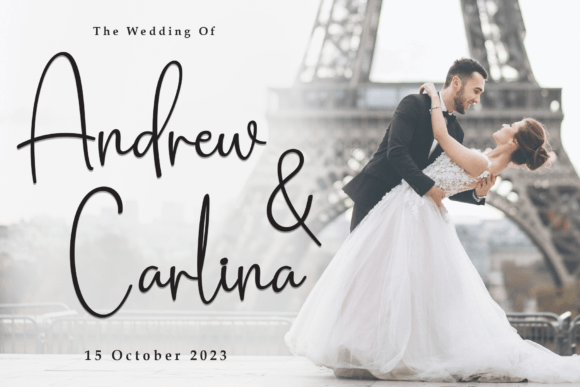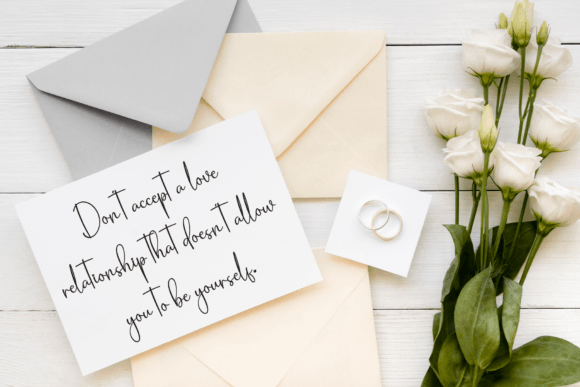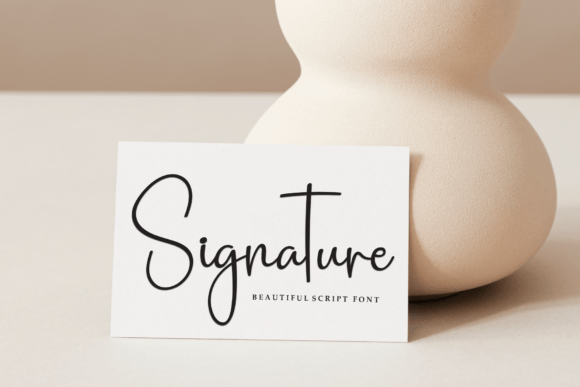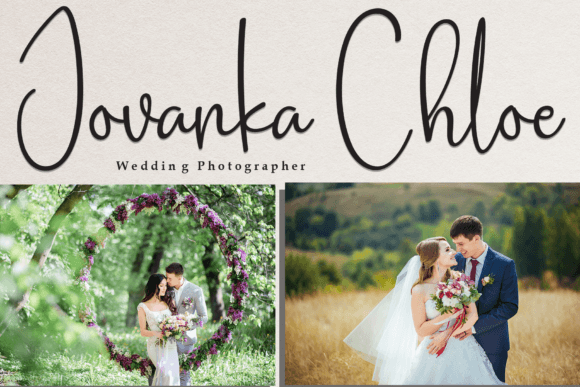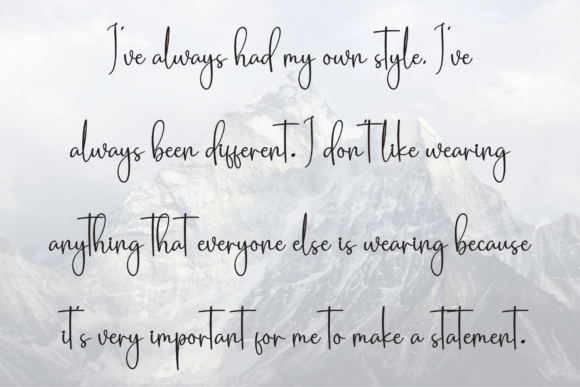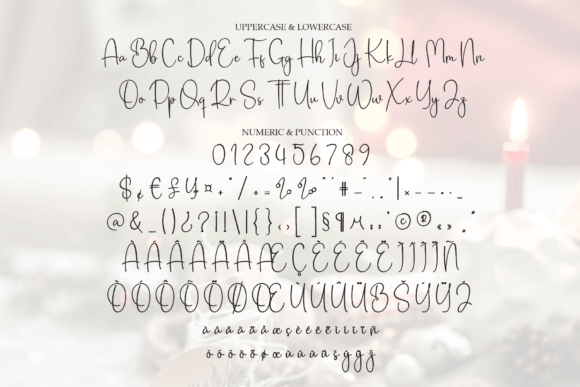
The Magic of Christmas Harmony Font: A Designer’s Delight
It’s the most wonderful time of the year – and I’m not just talking about the holiday season! As a designer, I’m always on the lookout for fonts that can add a touch of magic to my projects. Recently, I was working on a wedding invitation design for a client, and I stumbled upon the Christmas Harmony Font. It was love at first sight! ✨
This sweet and friendly handwritten font has become my go-to for adding a fun touch to any design. In this article, I’ll share my honest review, a practical guide on how to use it, and some similar font alternatives that you might enjoy.
An Honest Review of Christmas Harmony Font
- ✨ Cute and versatile: This font is perfect for a wide range of design projects, from wedding invitations to social media graphics.
- ✅ Elegant yet playful: Christmas Harmony strikes the perfect balance between sophistication and whimsy.
- 💕 Handwritten charm: The font’s handwritten feel adds a personal touch to any design.
While Christmas Harmony Font is a beautiful addition to any design, there are a few things to keep in mind:
- 🤔 Limited use of uppercase letters: Some designers might find the uppercase letters a bit limited in their use, but this can also be seen as a stylistic choice.
- ⚠️ Not suitable for body text: Due to its decorative nature, Christmas Harmony Font is best used for headlines, titles, or short paragraphs.
The Story Behind Christmas Harmony Font
Christmas Harmony Font was designed with love and care by a talented font creator. The goal was to create a font that would evoke the feeling of warmth and joy during the holiday season. The result is a beautiful, handwritten font that’s perfect for adding a personal touch to any design.
Q: What type of projects is Christmas Harmony Font best suited for?
A: Christmas Harmony Font is ideal for wedding invitations, cards, social media graphics, and any other design that needs a fun touch.